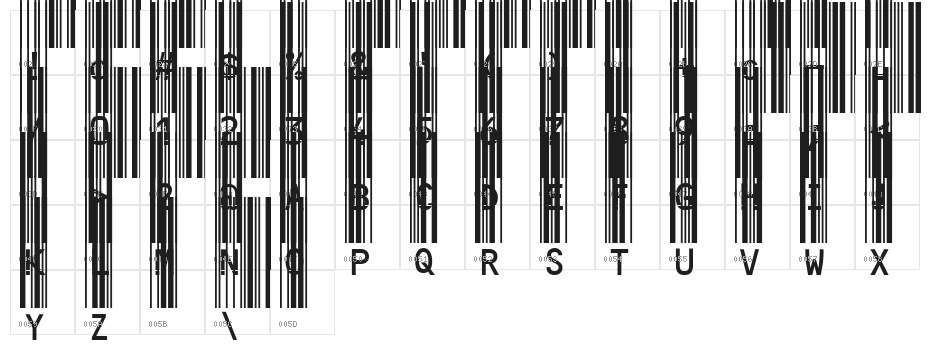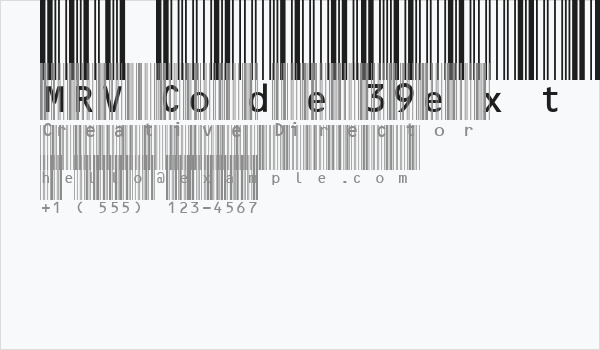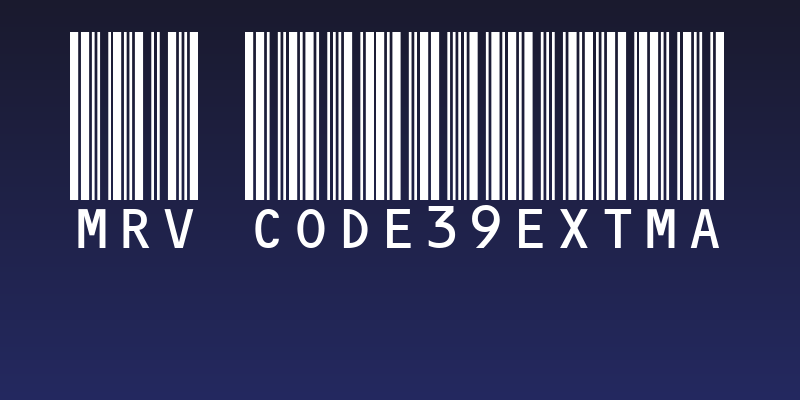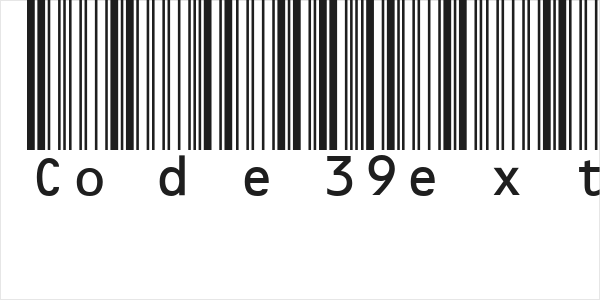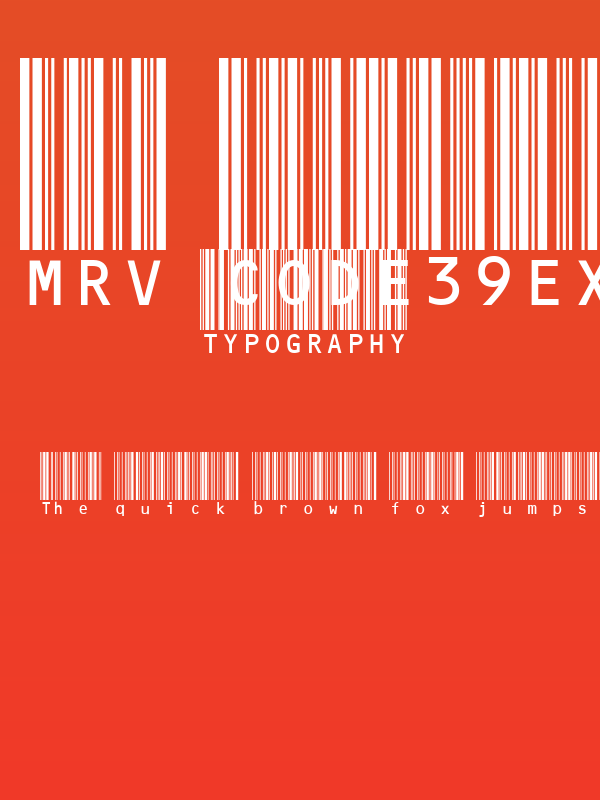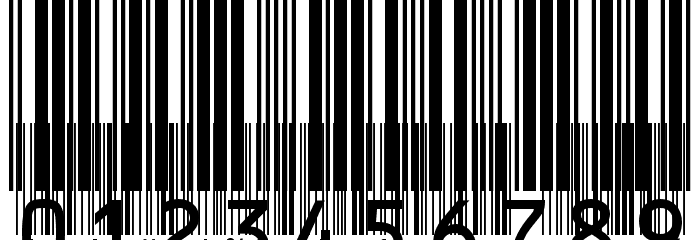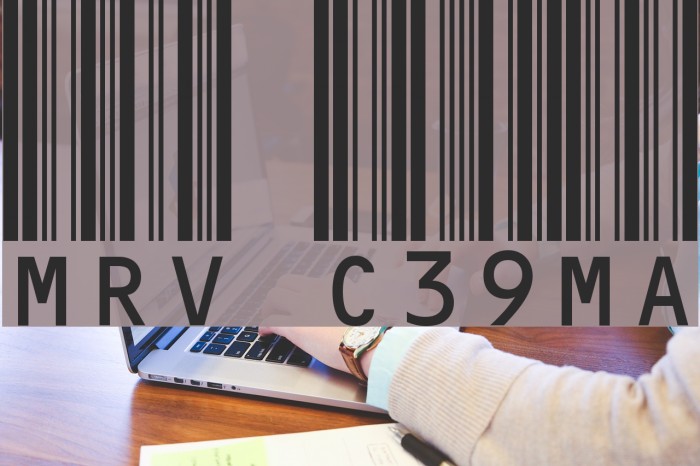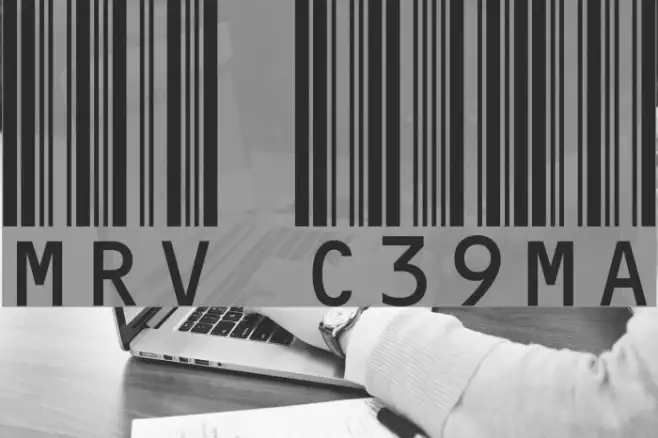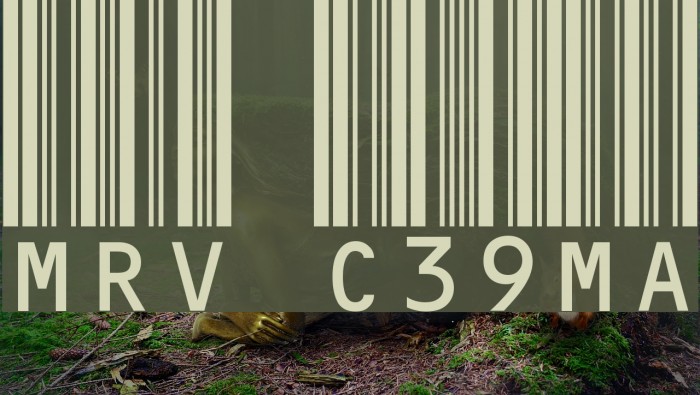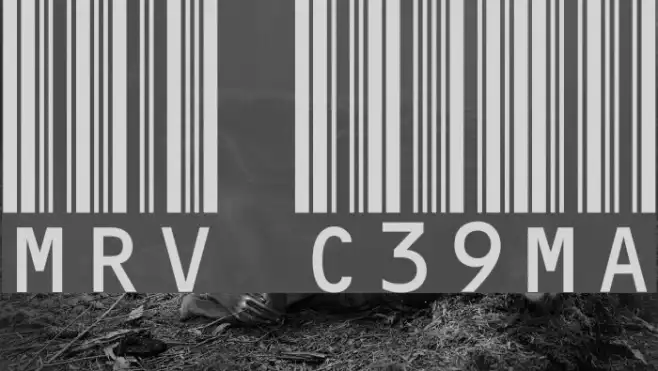
MRV Code39extMA Font
This font is a barcode style, specifically designed for encoding alphanumeric characters in a machine-readable format. It features a series of parallel lines of varying widths and spaces, representing different characters. The design is utilitarian, focusing on clarity and precision to ensure accurate scanning and data capture. Each character is represented by a unique pattern of bars, making it suitable for inventory management, product labeling, and other applications requiring automated data entry.
| Use Case | Logos, Product labeling, Inventory management |
| Proposed Projects | Ideal for inventory management systems, product labeling, and automated data entry applications. |